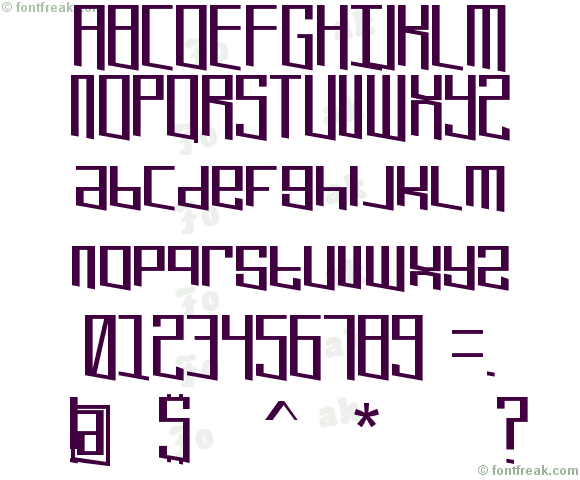
ExtremeRefresh
Extreme Refresh, designed by Jordie van Rijn and released by Typoware Fonts, is a striking display typeface that embodies a bold and dynamic aesthetic. As a sans-serif font, it features clean lines and a modern appeal, making it an ideal choice for a wide range of creative projects. The visual characteristics of Extreme Refresh include a substantial stroke weight that commands attention, paired with moderate contrast that enhances readability. The letterforms exhibit generous spacing, contributing to a light and airy feel, while unique decorative elements add a touch of flair without overwhelming the design.
This font excels in various use cases, making it particularly versatile for designers and content creators. It is perfect for eye-catching movie posters where bold typography is essential to draw in audiences. Additionally, Extreme Refresh works wonderfully for restaurant menus, providing a contemporary look that complements modern dining experiences. Wedding invitations can also benefit from its stylish yet approachable nature, offering a unique twist to traditional designs. Furthermore, it can serve as an engaging headline font for websites and social media graphics, helping brands establish a memorable visual identity.
What sets the Extreme Refresh font apart is its ability to blend boldness with sophistication, making it suitable for both casual and formal applications. Its eye-catching design and versatility ensure that it stands out in any context, providing an excellent option for those seeking to make a lasting impression. Don't miss the chance to elevate your projects with the Extreme Refresh font free download, and watch as it transforms your creative endeavors.